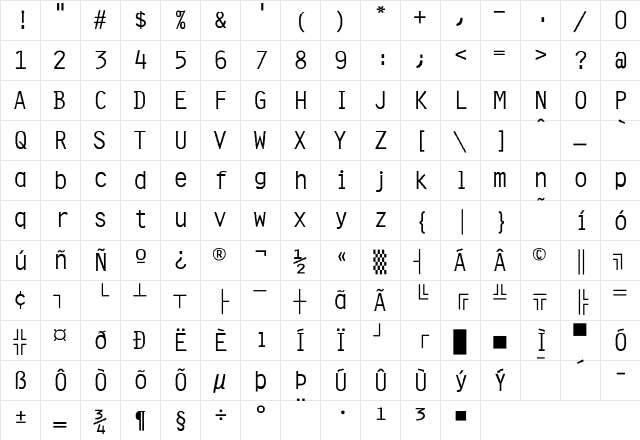
Prester-Normal Regular
Complete Prester-Normal Regular glyph index. Displaying only characters natively supported by Prester-Normal Regular font.
Design Context for Prester-Normal
Prester-Normal is a composed and adaptable typeface that performs quietly and consistently across a wide range of design contexts.